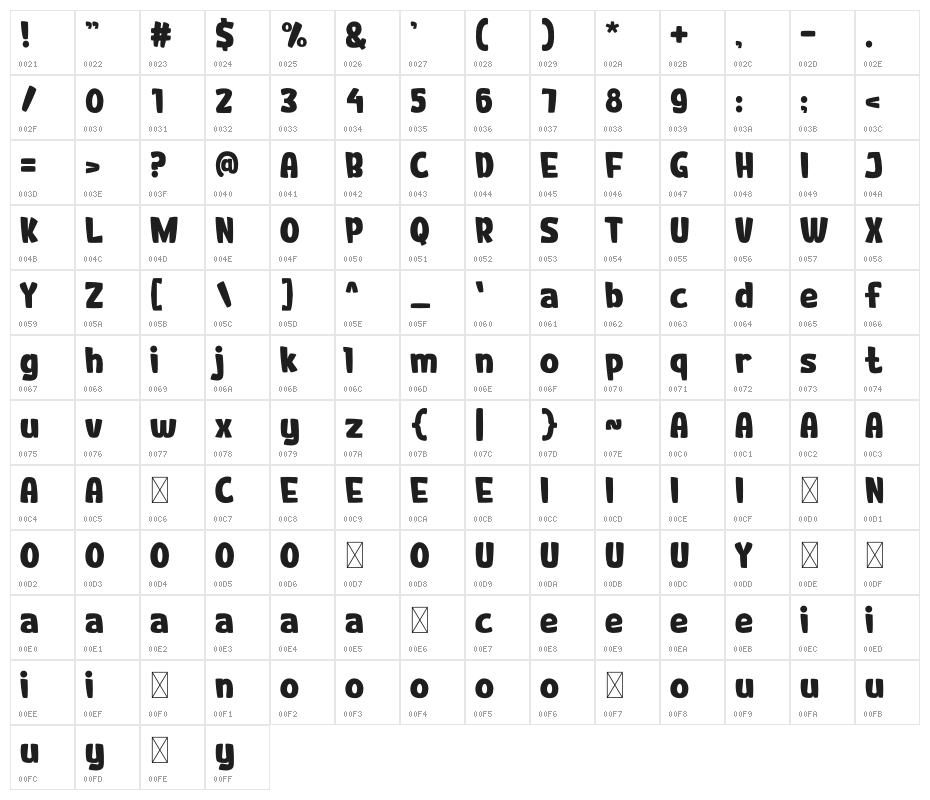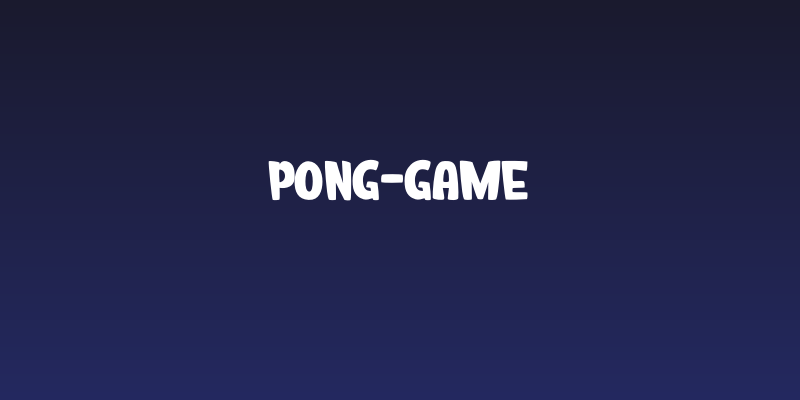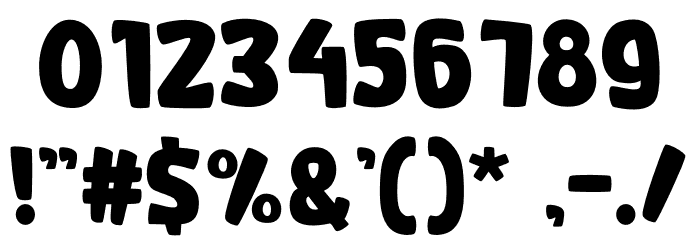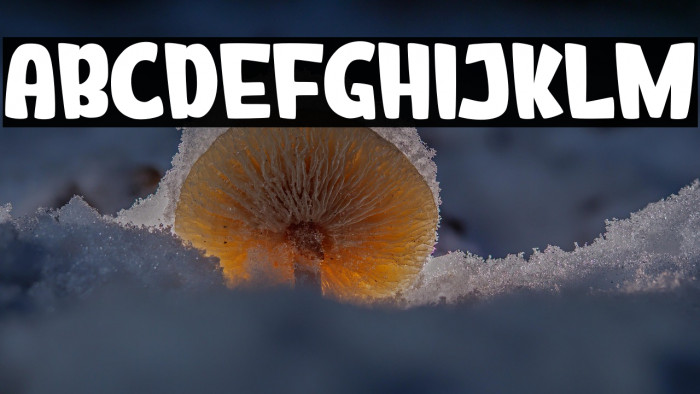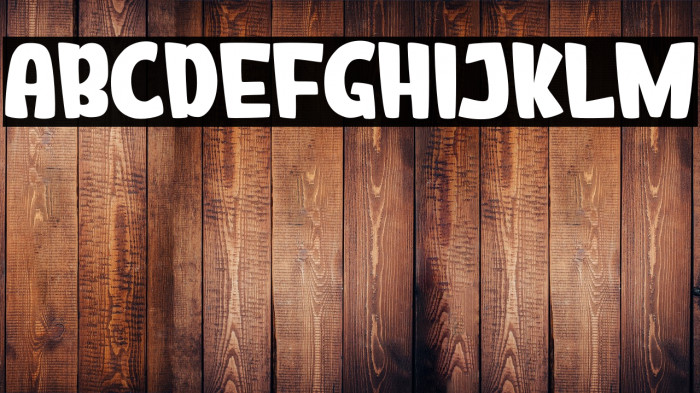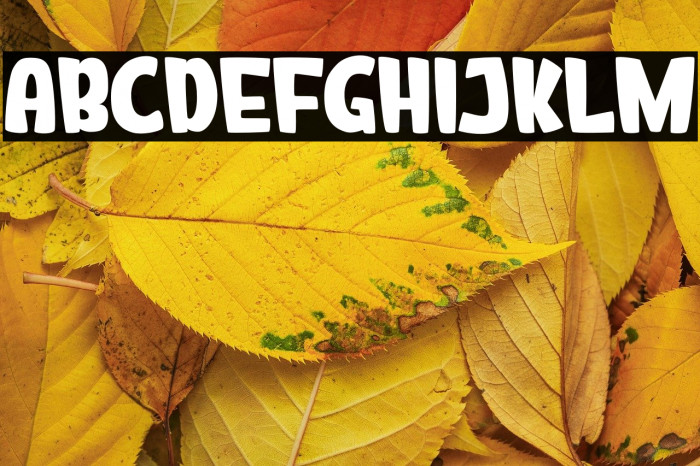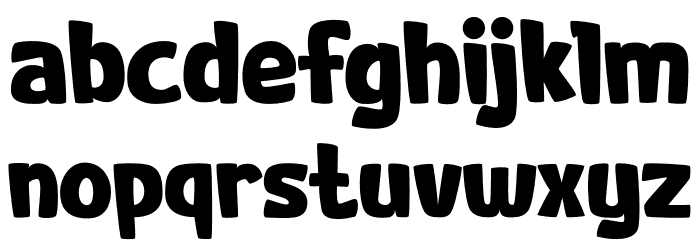
Pong-Game Font
Pong-Game Description
This font features bold, rounded characters with a playful and informal style. The letters have a consistent thickness, contributing to a uniform appearance across both uppercase and lowercase alphabets. The numbers and special characters maintain this cohesive look, making the font suitable for projects that require a fun and engaging aesthetic. The overall design is approachable and friendly, with a slightly exaggerated form that adds to its charm. The spacing between characters is relatively tight, enhancing its compact and energetic feel.
| Proposed Projects | Ideal for children's books, comic strips, playful branding, and casual event invitations. |